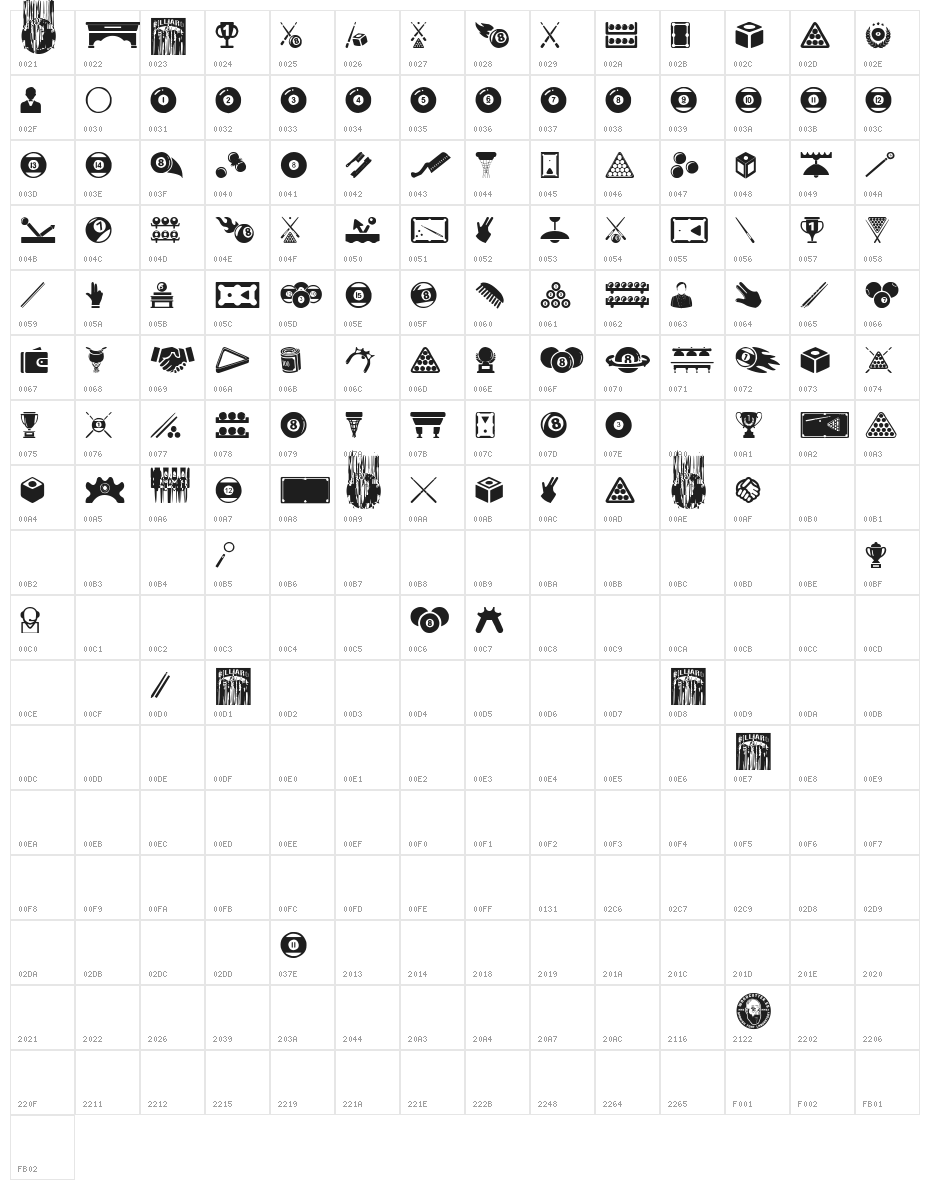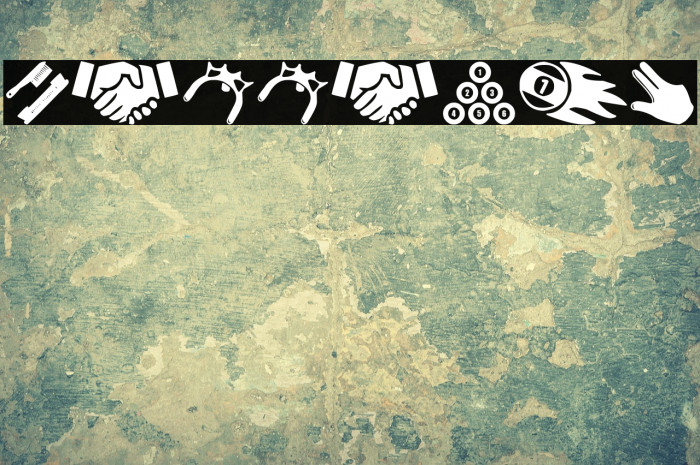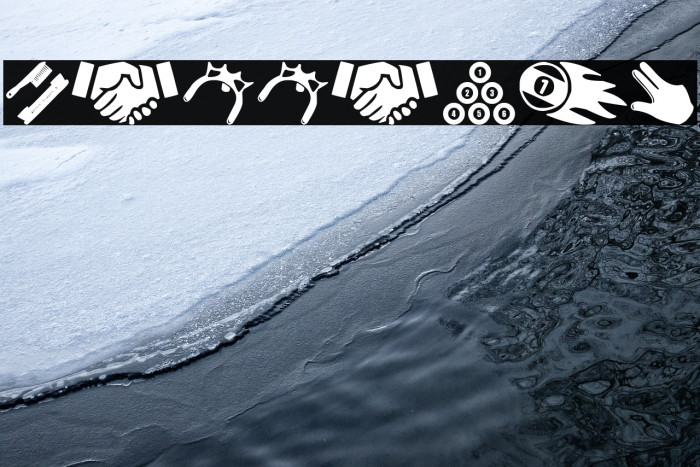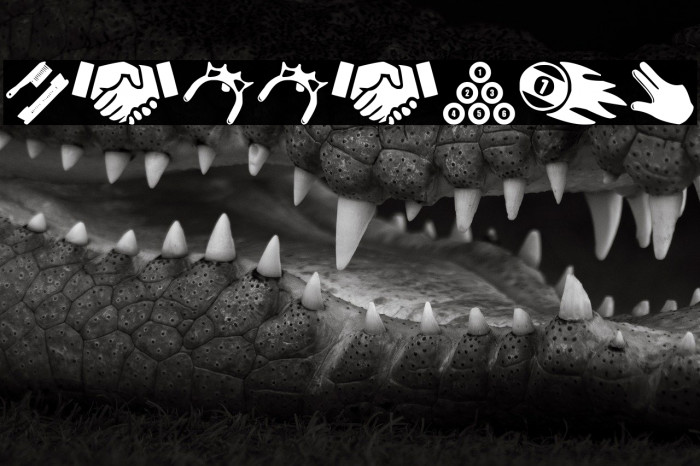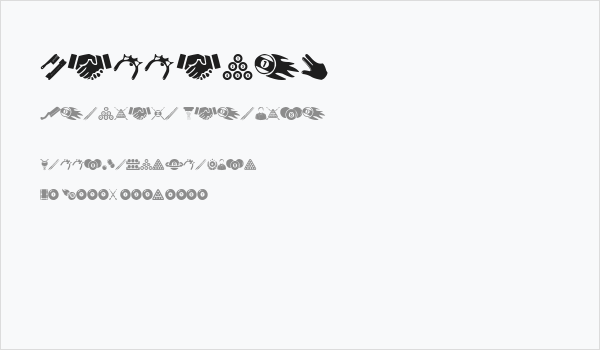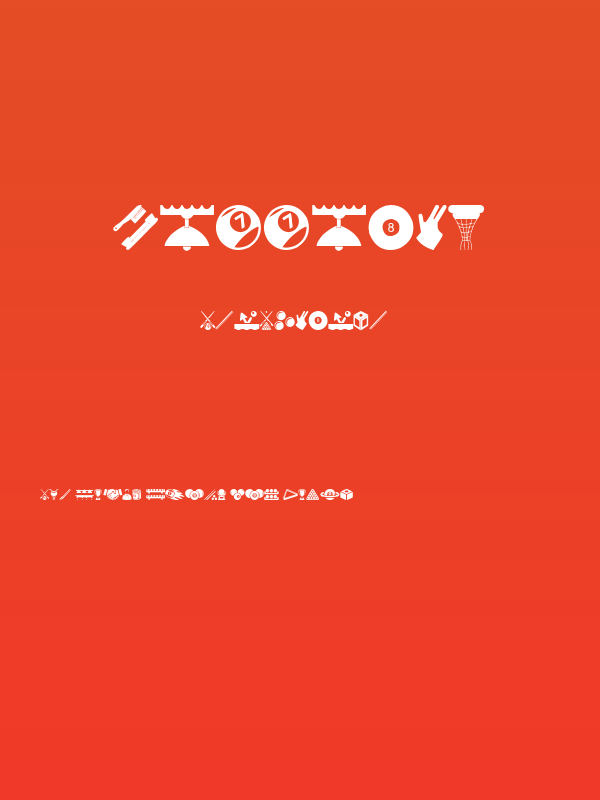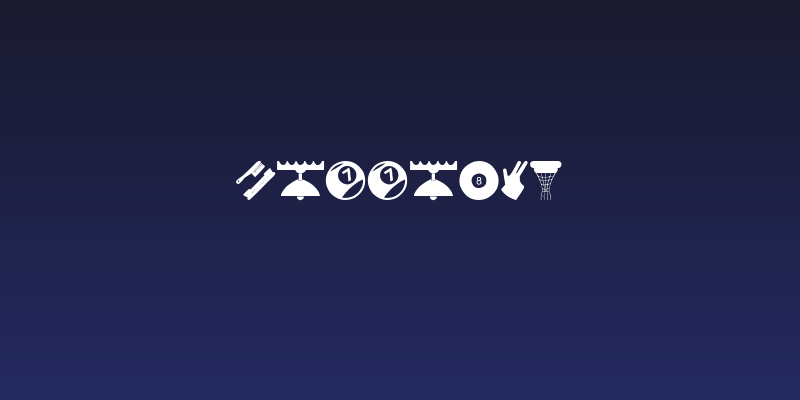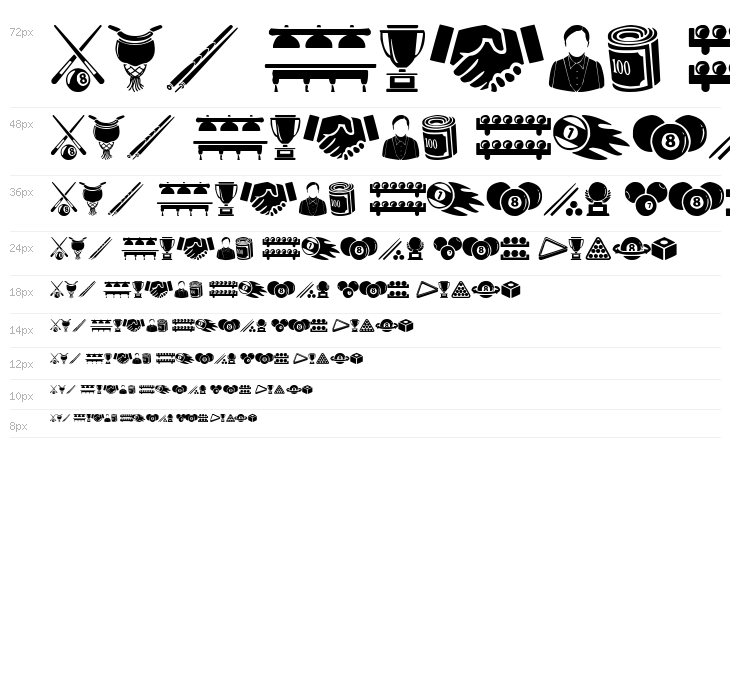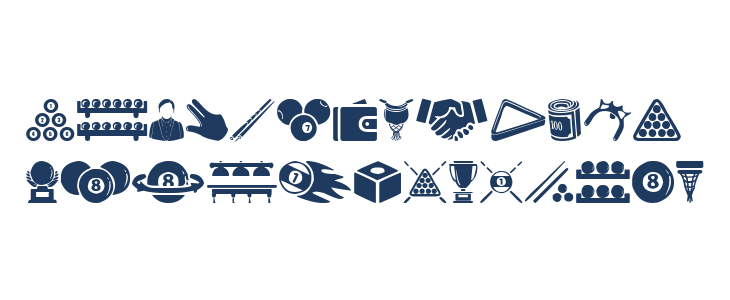
Billiard Font
Billiard Description
A decorative icon-based font featuring billiards and pool-related symbols such as balls, cues, tables, trophies, and accessories. Each character is represented by a unique pictogram, making it highly illustrative and thematic.
Overall StyleDecorative, Thematic, Playful
Use CaseLogos, Posters, Themed Graphics, Signage
Proposed ProjectsSports event posters, themed party invitations, signage for billiard halls, infographics, novelty merchandise.